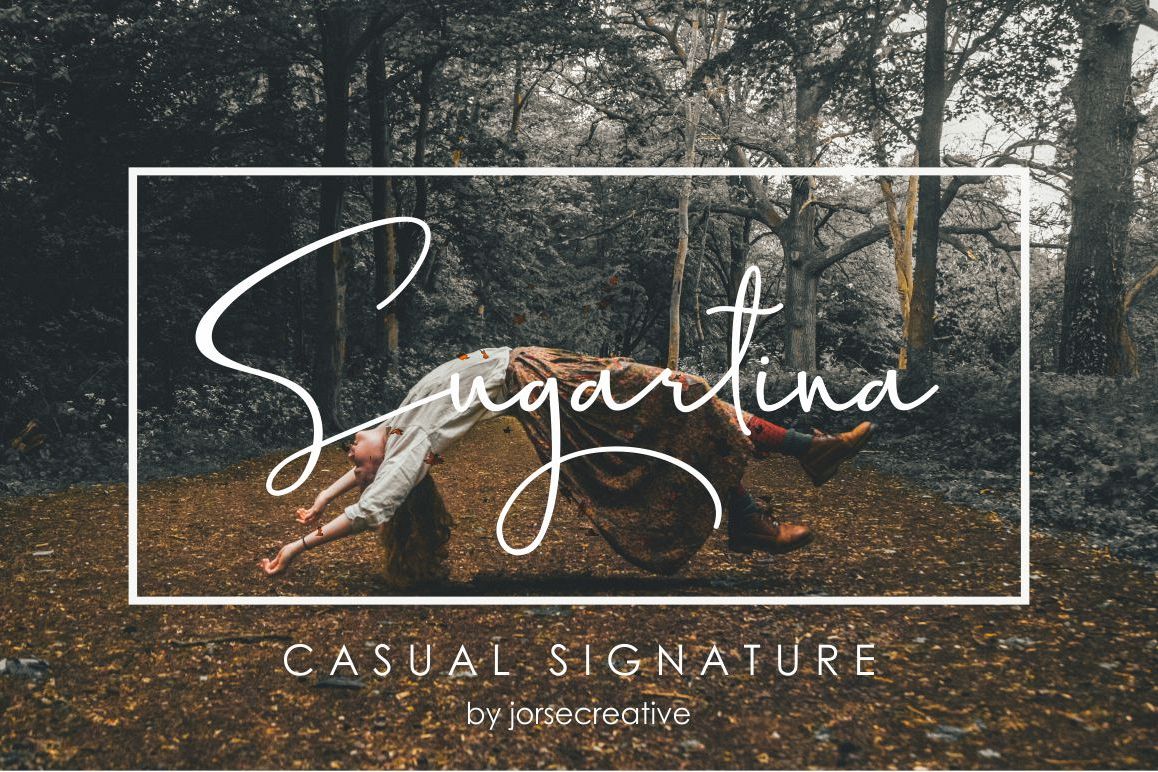
Sugartina
Introducing the Signature Font "Sugartina" is made like a handwriting that makes your script like your own. Opentype features like alternatives, final form and ligatures. we make this font look elegant, classy, easy to read, stylish, easy to remember, and easy to use.Sugartina Font is the perfect choice for watermarks on photography, signature logo design, quotes, album covers, business cards, invitations and many other design projects. From business cards to watermark Photo, Sugartina is present to make your design elegant.Sugartina has standard Stylistic, Stylistic Alternate, Stylistic Sets, and ligatures. and includes uppercase and lowercase letters, numbers, punctuation marks and International Characters. SUGARTINA FILE INCLUDES